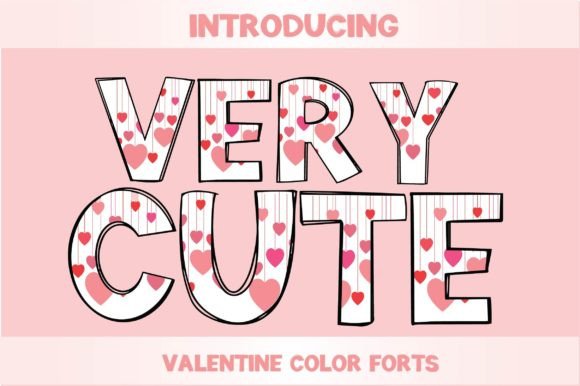
Discover the Very Cute font, a vibrant and captivating typeface that will transform your creative projects into eye-catching masterpieces. This exclusive font family, designed by the talented BA store, features a stunning array of colorful letters and red/pink heart-shaped balloons, making it the perfect choice for adding a touch of charm and whimsy to your designs.
With its unique and stylish appearance, the Very Cute font is ideal for Cricut pens, allowing you to effortlessly create personalized cards, invitations, scrapbooks, and much more. Let your imagination soar as you explore the endless possibilities this remarkable font offers.
Express your creativity like never before with the Very Cute font. Its eclectic and whimsical characters will add a touch of magic to your designs, capturing the attention of everyone who sees them. Whether you're a seasoned crafter or just starting, this user-friendly font will help you bring your creative visions to life seamlessly.